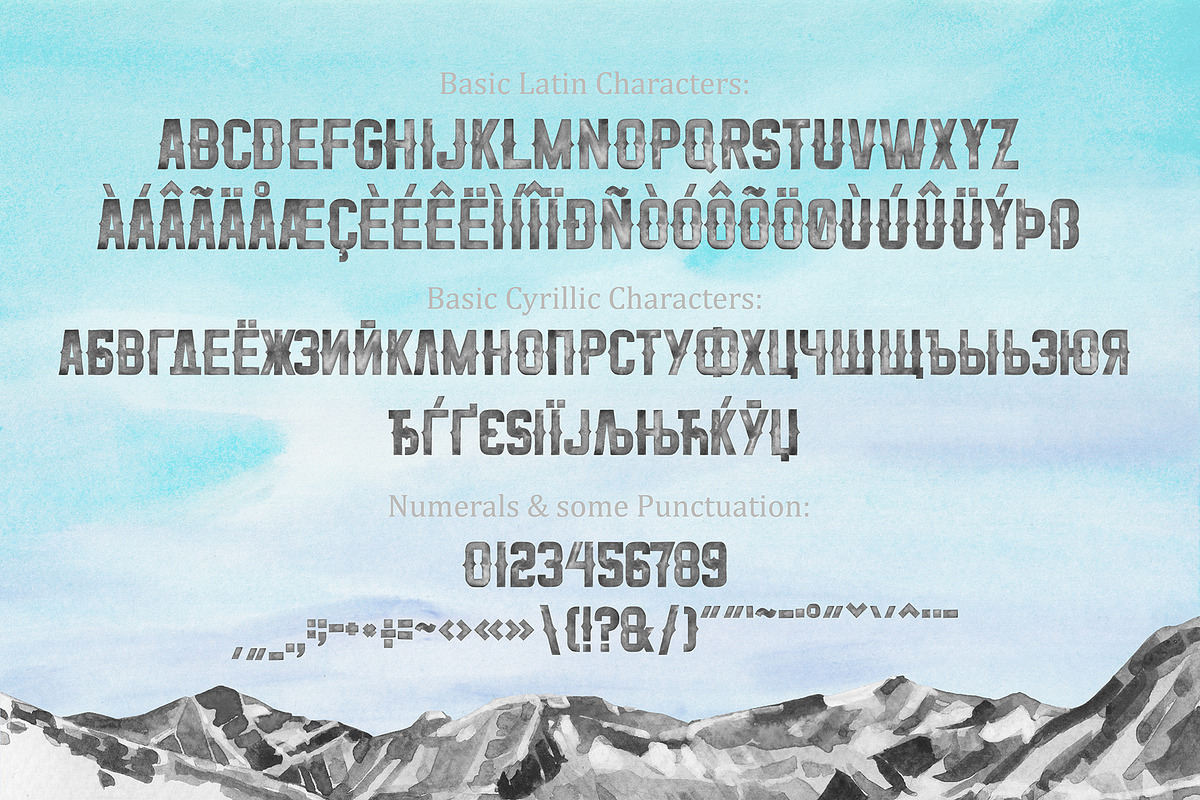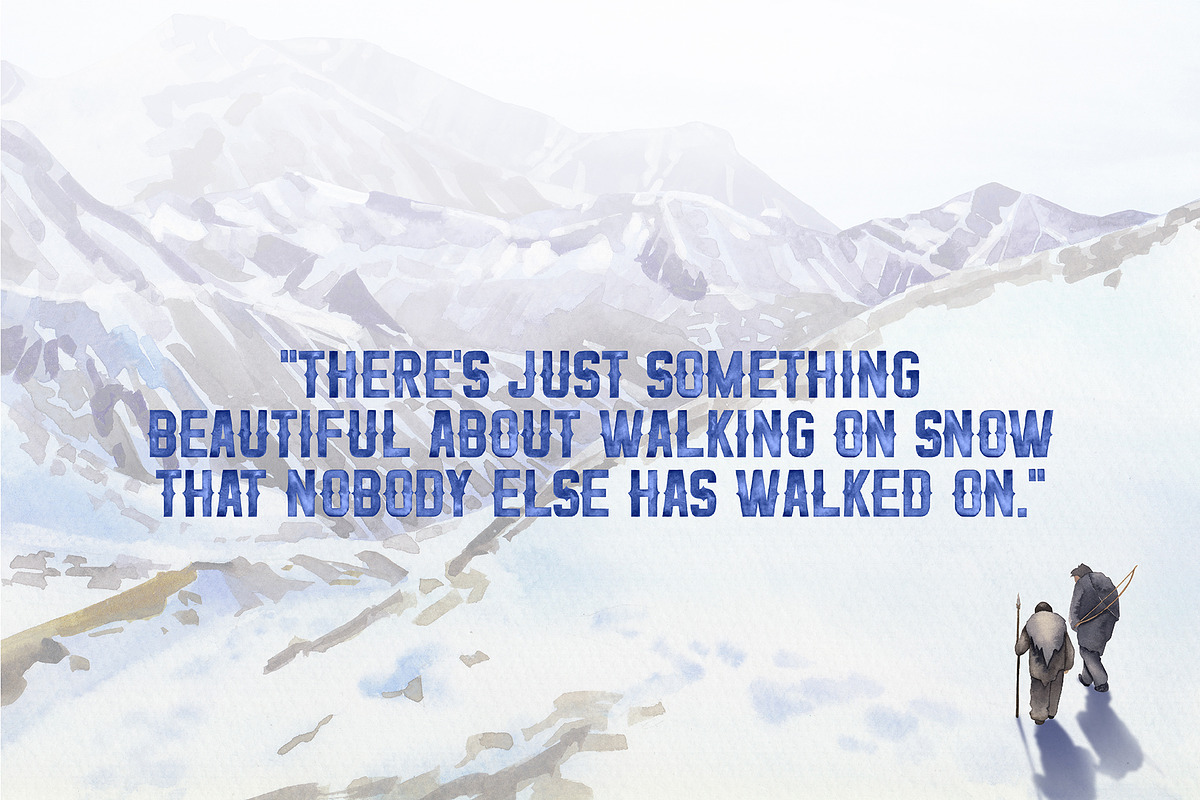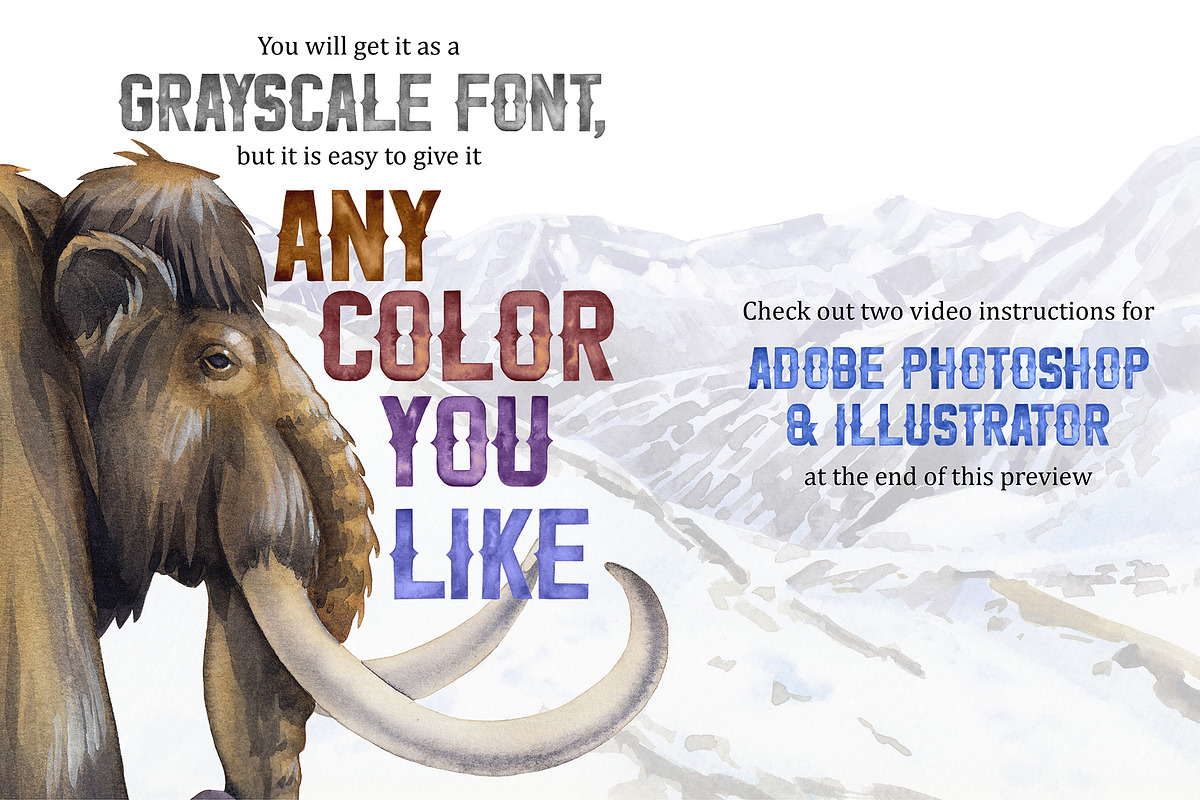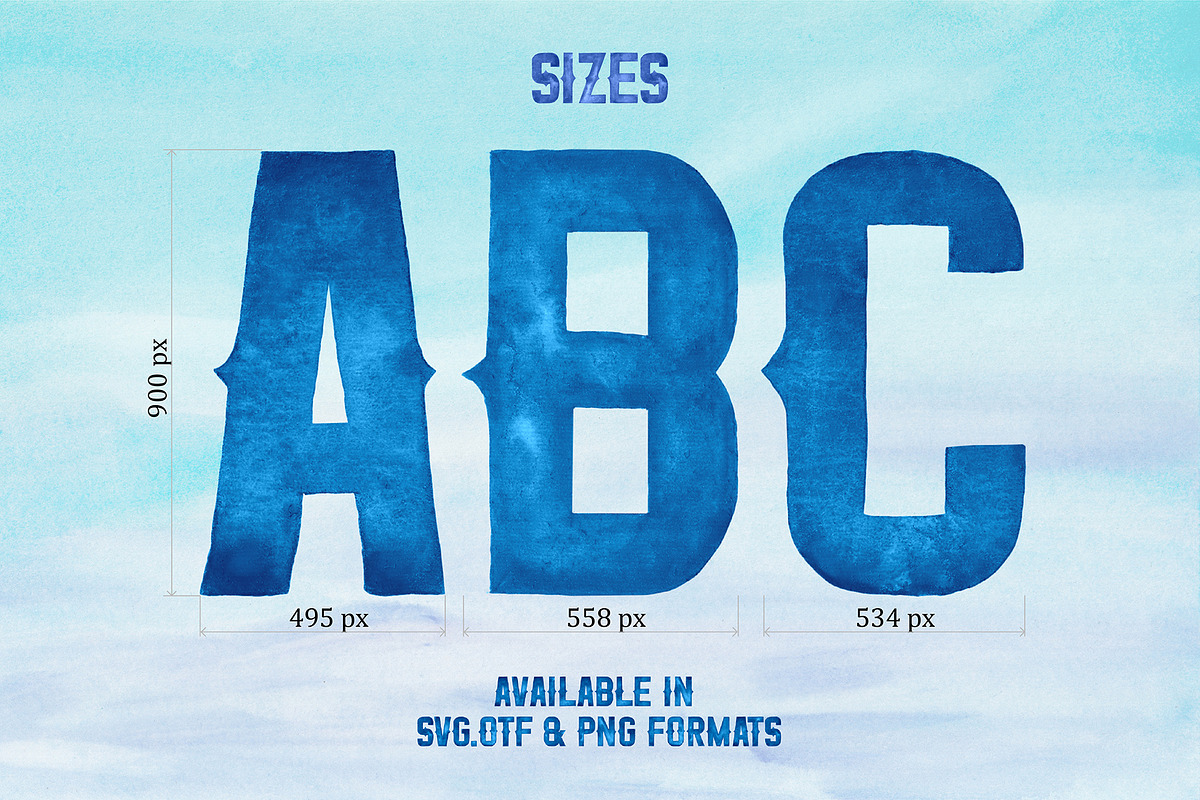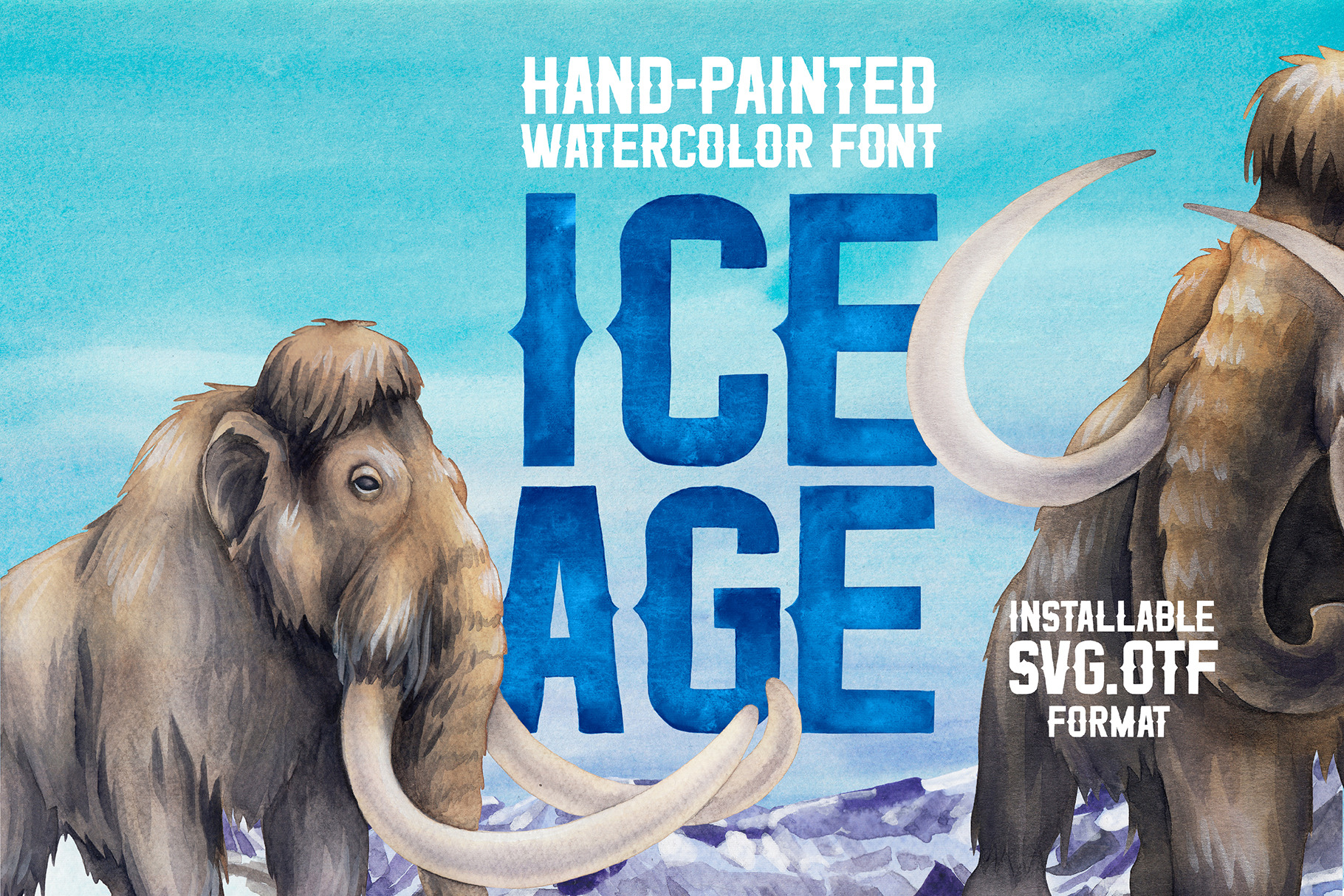
Ice Age - installable SVG font
Ice Age is a hand-painted watercolor font in a installable SVG.OTF and PNG formats.
Font features:
- support of basic LATIN & Cyrillic characters, numerals and some punctuation.
- UPPERCASE characters only (it means that Lowercase characters look the same as Uppercase).